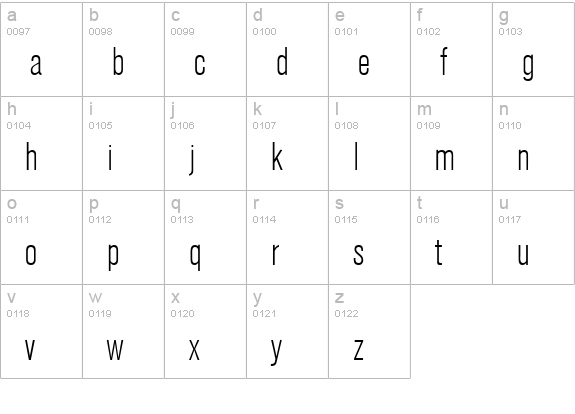
A750-Sans-Cd-Light-Regular is a refined, elegant variant in the A750 typeface family \xE2\x80\x94 well suited to elegant body text, refined sub-headings, and luxury branding.
The A750-Sans-Cd-Light-Regular font is a sleek and modern typeface that is perfect for a wide range of design projects. With its clean lines and elegant appearance, this font exudes a sense of sophistication and professionalism. Whether you're working on a website, poster, or branding materials, the A750-Sans-Cd-Light-Regular font is sure to make a lasting impression. What's even better is that this font is available for free download at FontsMarket.com. Simply visit the website and start using this stylish font in your projects today. Don't miss out on the opportunity to enhance your designs with the A750-Sans-Cd-Light-Regular font - download it now and take your creations to the next level!